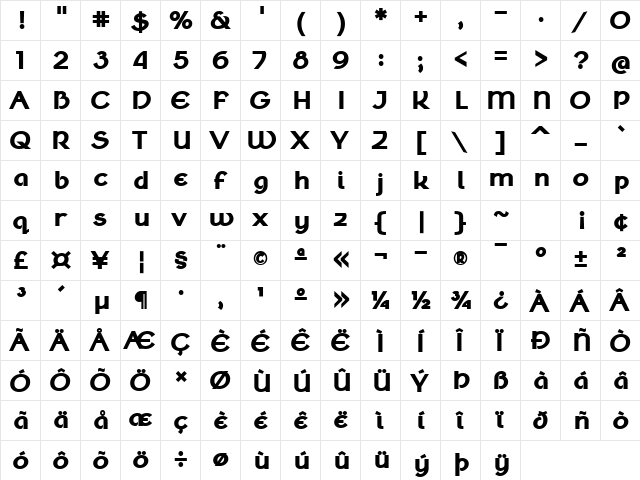
Klaudia Bold
Design Context for Klaudia Typeface
Klaudia takes a measured approach to typography — its balanced proportions and neutral character make it a reliable workhorse for both digital and print work. Its bold stroke weight gives it real presence on the page.